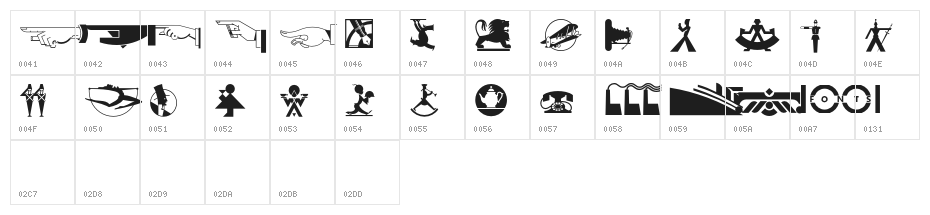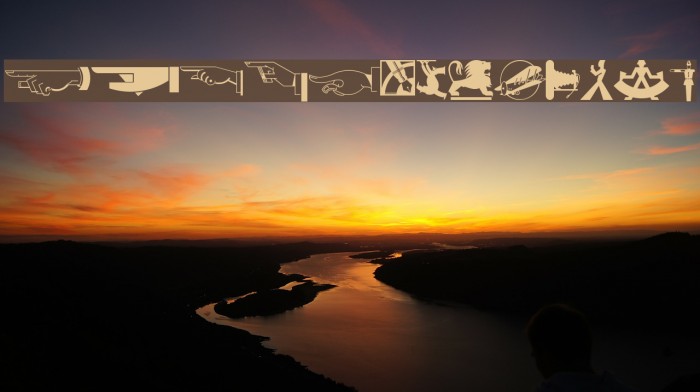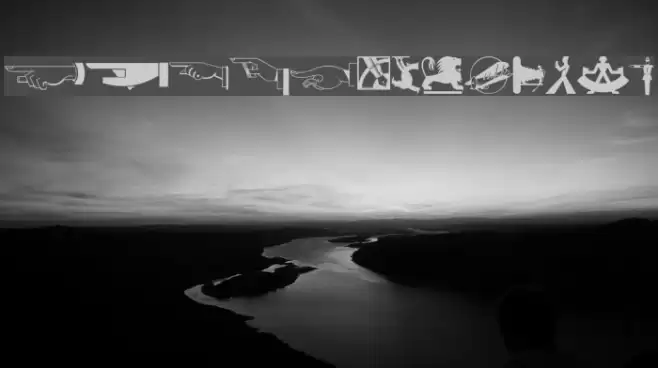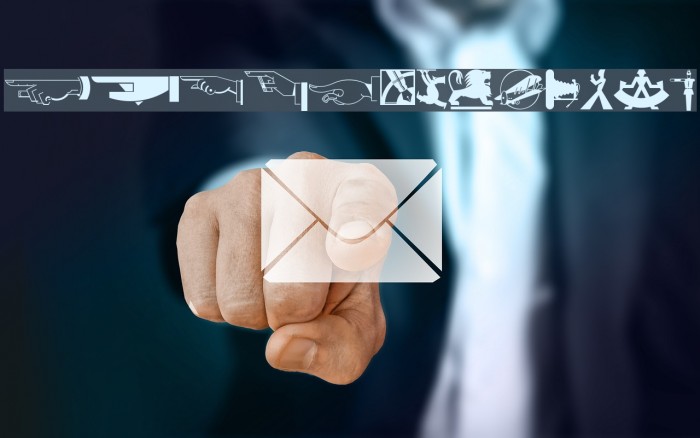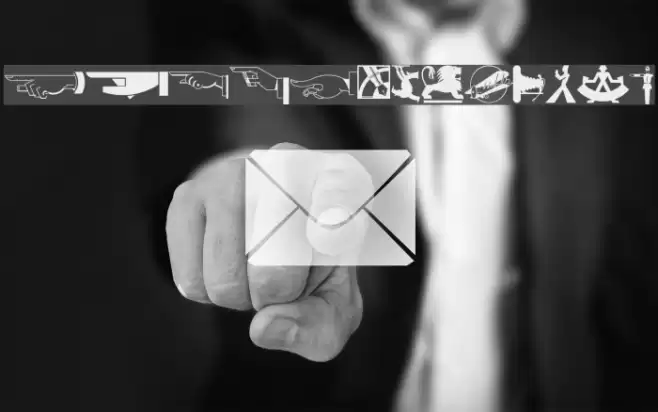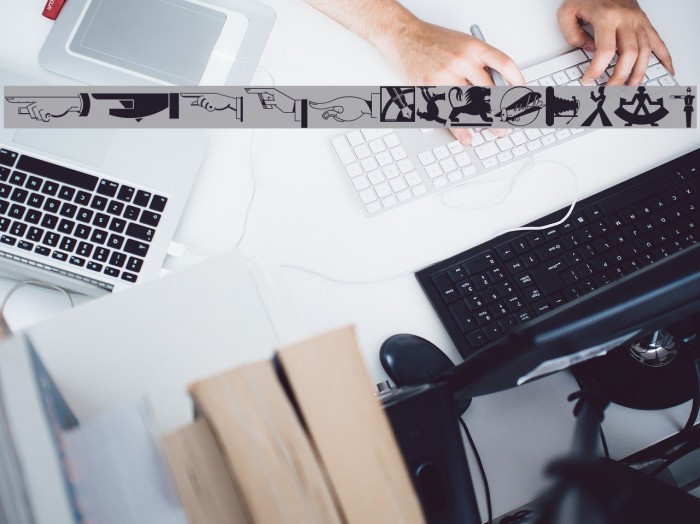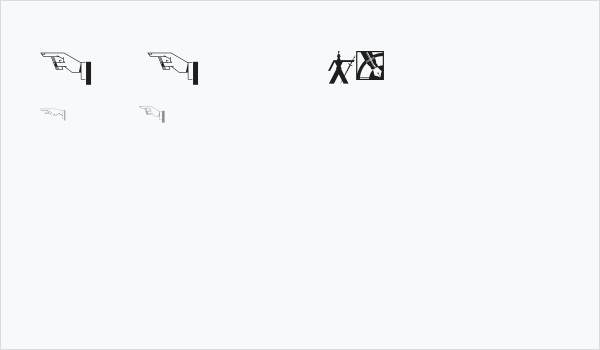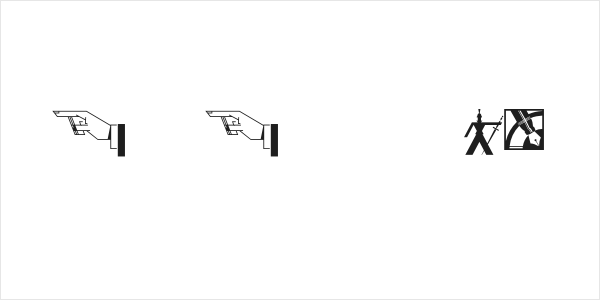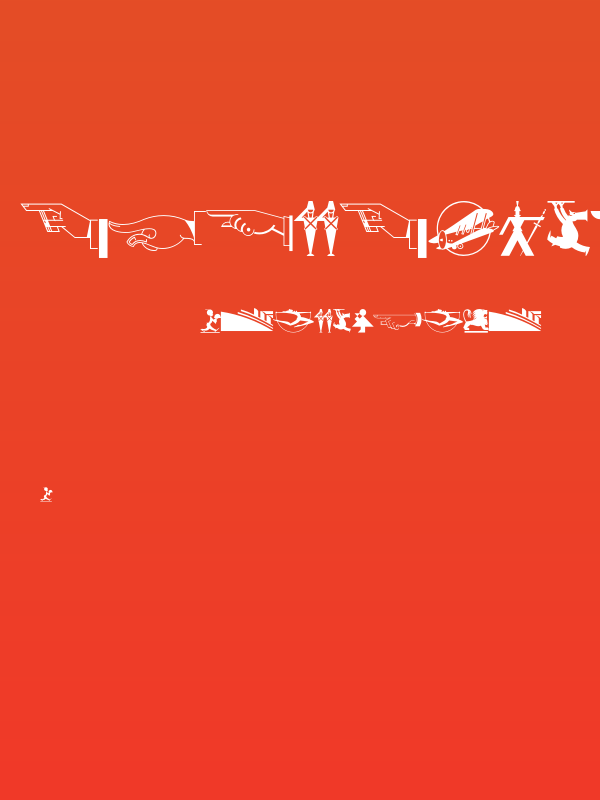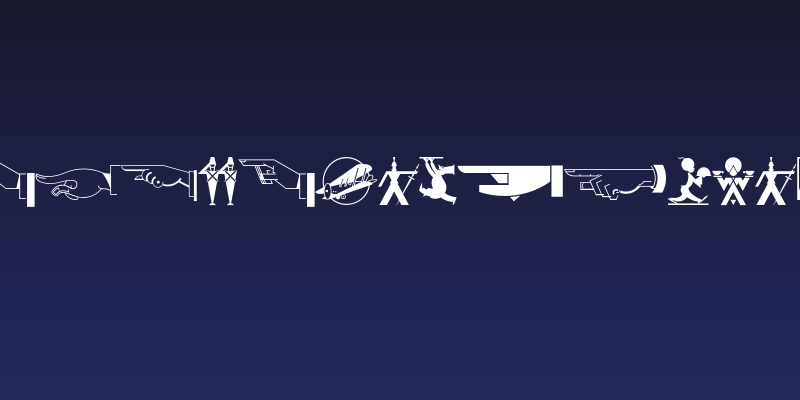
DecoDingbatsNF Font
DecoDingbatsNF Description
This font is a collection of decorative symbols and pictograms, featuring a variety of intricate and stylized images. The characters include hands pointing in different directions, abstract figures, and various objects that convey a sense of movement and artistic flair. Each symbol is bold and distinct, designed to capture attention and add a unique visual element to any project. The style is reminiscent of vintage signage and illustrations, offering a playful yet sophisticated aesthetic.
| Use Case | Logos, Posters, Invitations |
| Proposed Projects | Ideal for creative projects such as posters, invitations, and graphic design elements where a unique and artistic touch is desired. |